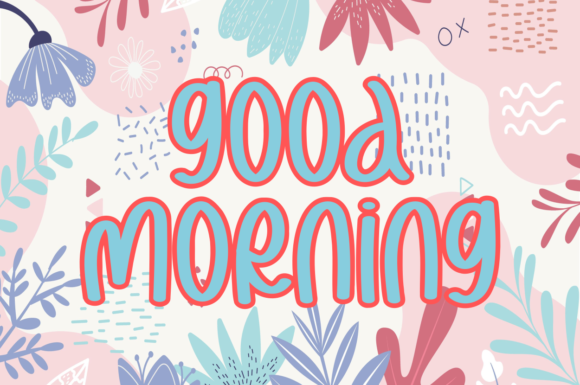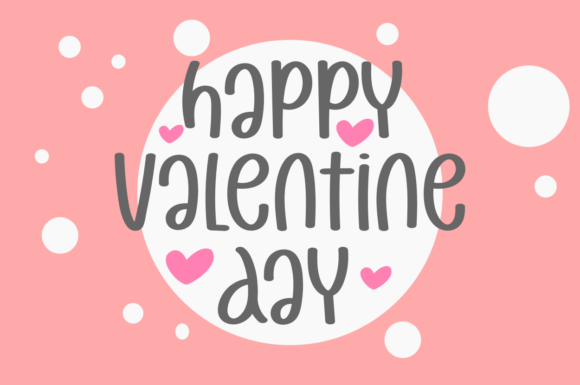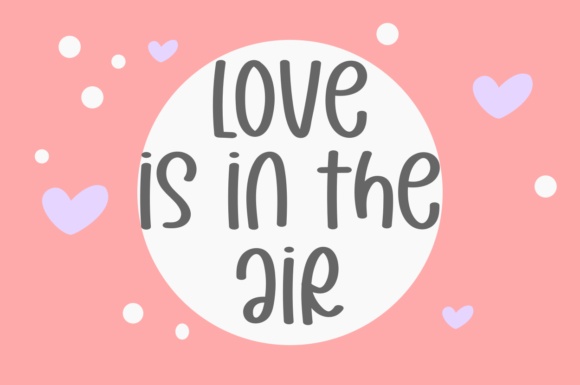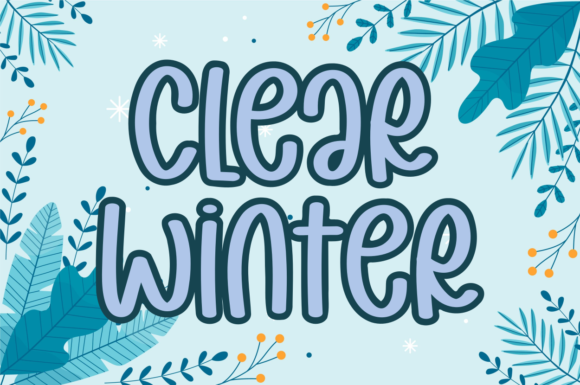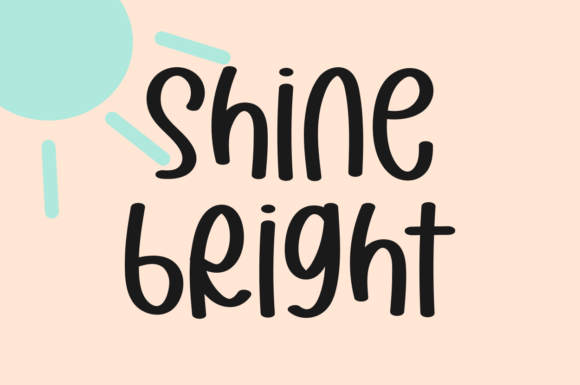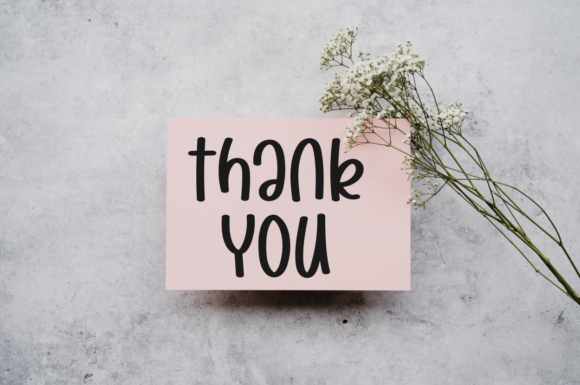
Introduction to Mommy Summer Font Font
Fonts play a crucial role in design, and the Mommy Summer Font font is a typeface that brings both character and versatility to any project. Whether you’re working on a branding project, a website, or a print design, the Mommy Summer Font font offers a unique style that can elevate your work.
Mommy Summer is a fresh & simple handwritten font.
It can be used for various purposes such as logos, wedding invitations, headings, t-shirts, letterhead, signage, labels, news, posters, badges and so much more .
Key Features of Mommy Summer Font Font
Why Choose Mommy Summer Font Font?
The Mommy Summer Font font is more than just a typeface – it’s a design tool that helps you communicate your message with style and clarity. Its unique character set and versatile design make it suitable for a wide range of applications, from elegant invitations to bold headlines.
With its carefully crafted letterforms and balanced proportions, the Mommy Summer Font font ensures readability and visual appeal across all mediums.
What makes Mommy Summer Font font special?
The Mommy Summer Font font stands out with its unique design, exceptional readability, and versatility across various design applications.